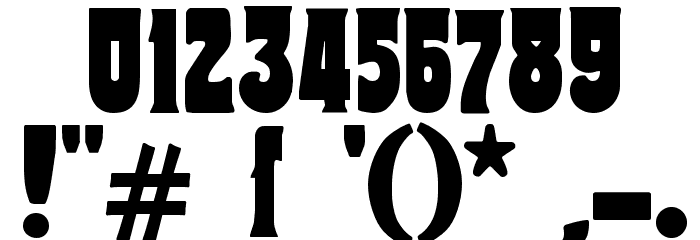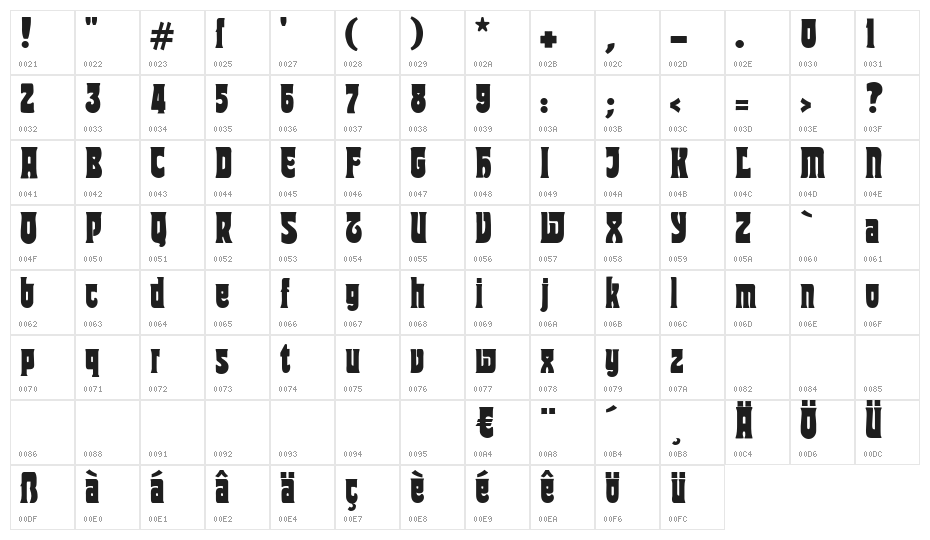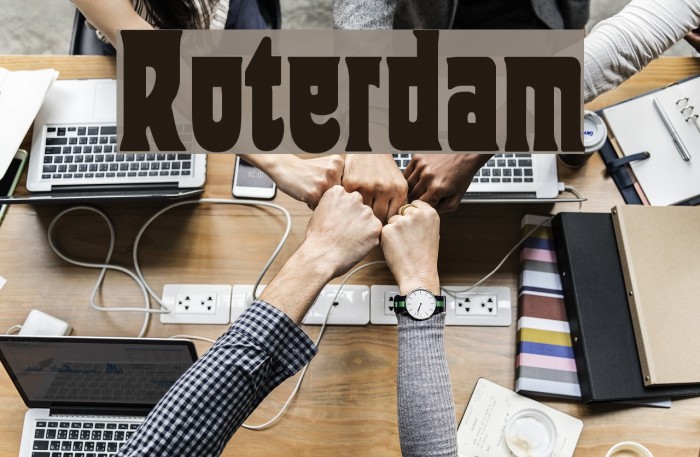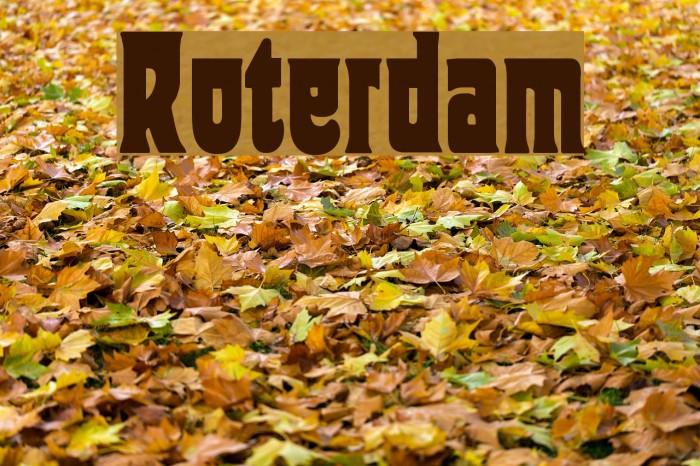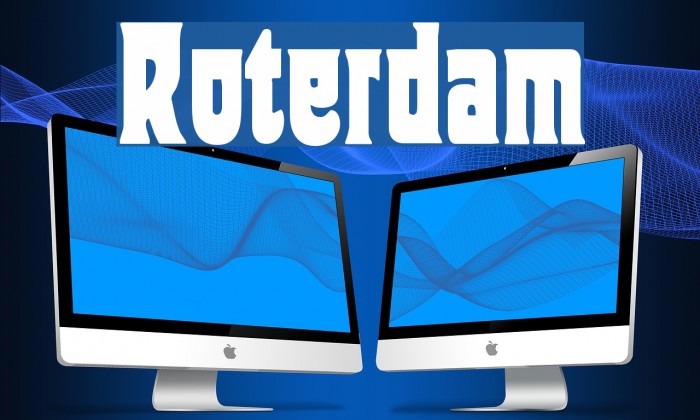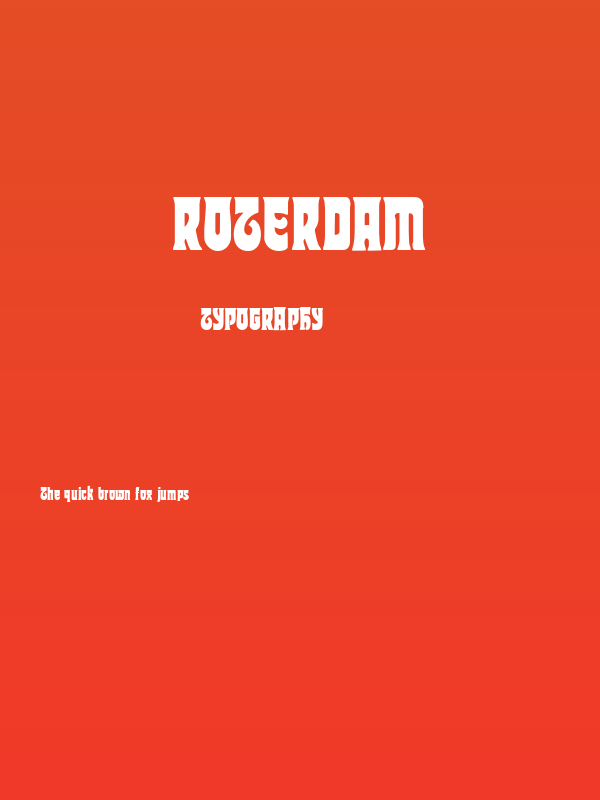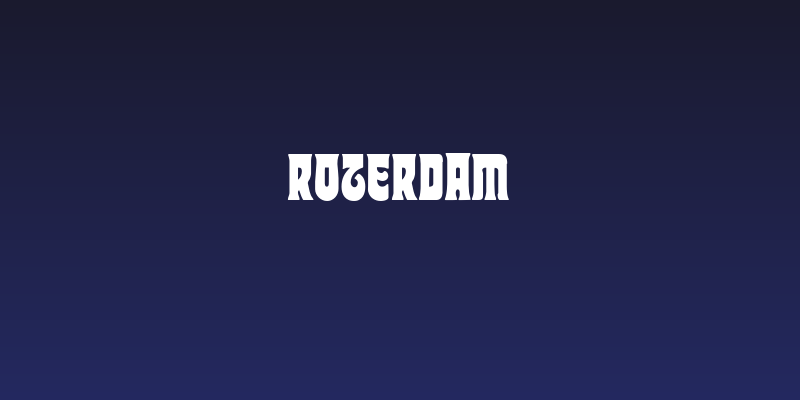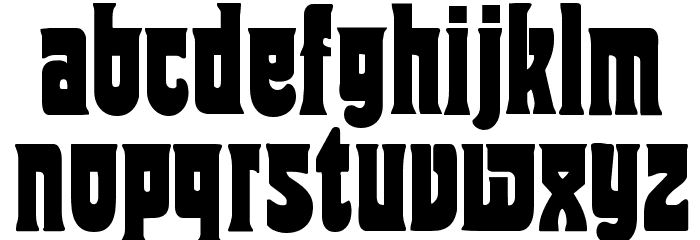
Roterdam Font
Roterdam Description
This bold and striking font features a unique blend of modern and vintage styles, characterized by its thick, blocky letters with sharp edges and distinct curves. The uppercase and lowercase letters maintain a consistent weight, giving the font a cohesive and powerful appearance. The numbers and special characters are designed with the same boldness, ensuring uniformity across all elements. Its high contrast in stroke thickness adds to its dramatic and eye-catching aesthetic, making it ideal for impactful designs.
| Overall Style | Modern Vintage |
| Proposed Projects | Ideal for posters, logos, branding, and headlines where a strong visual impact is desired. |